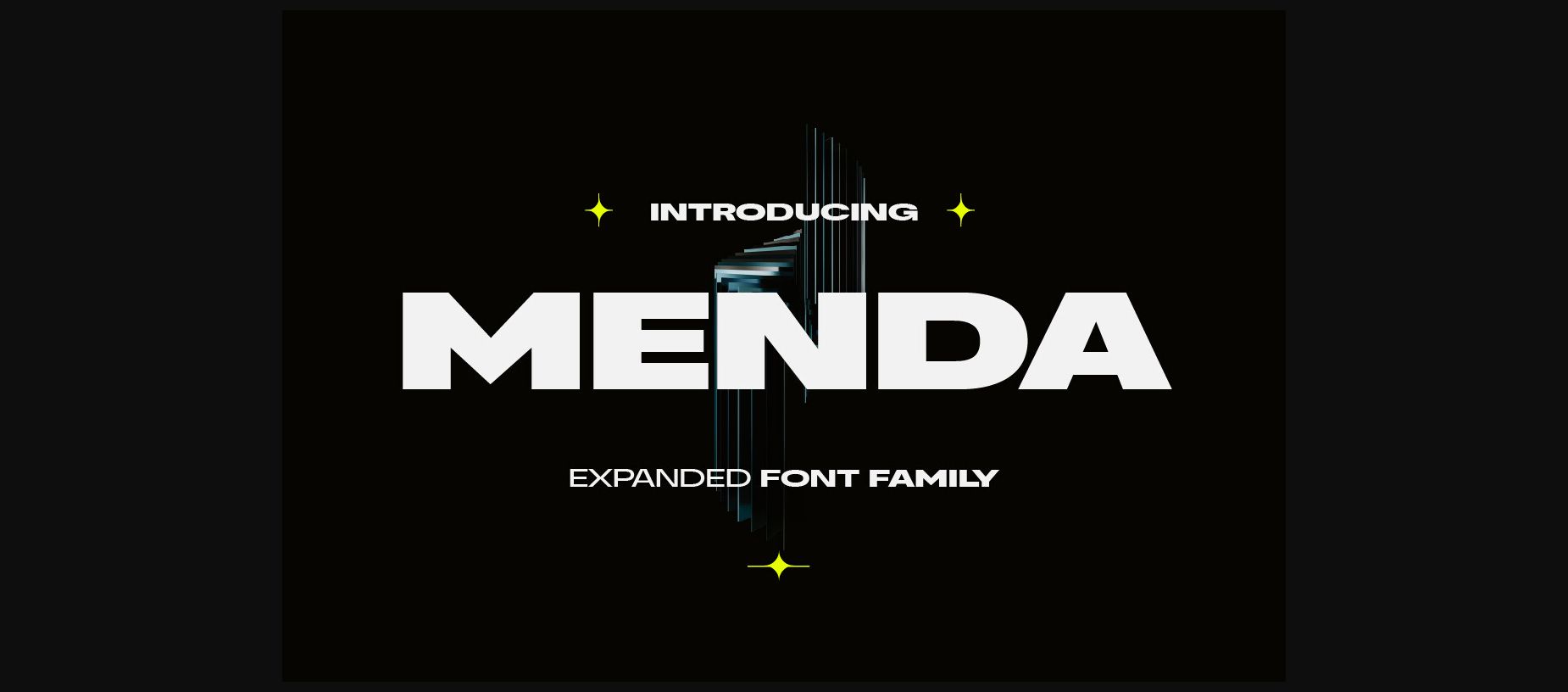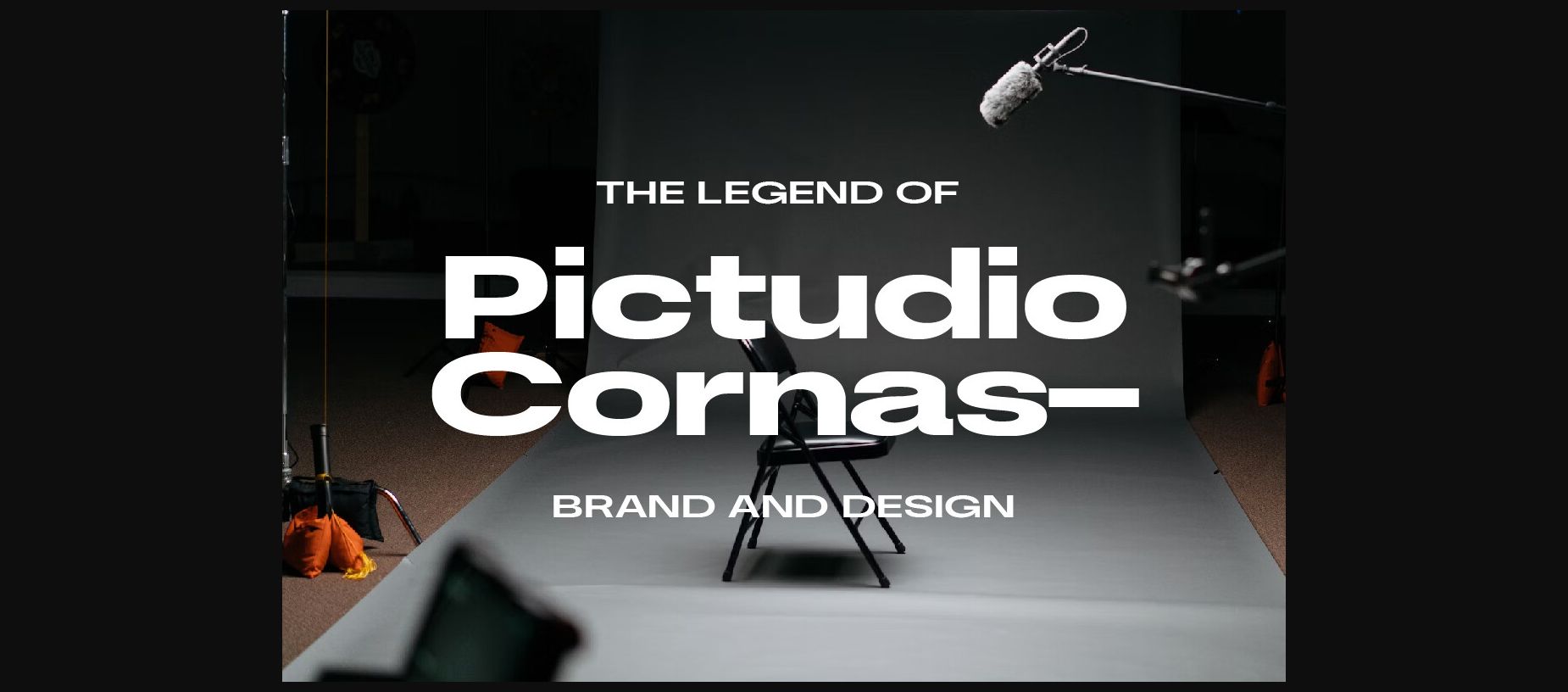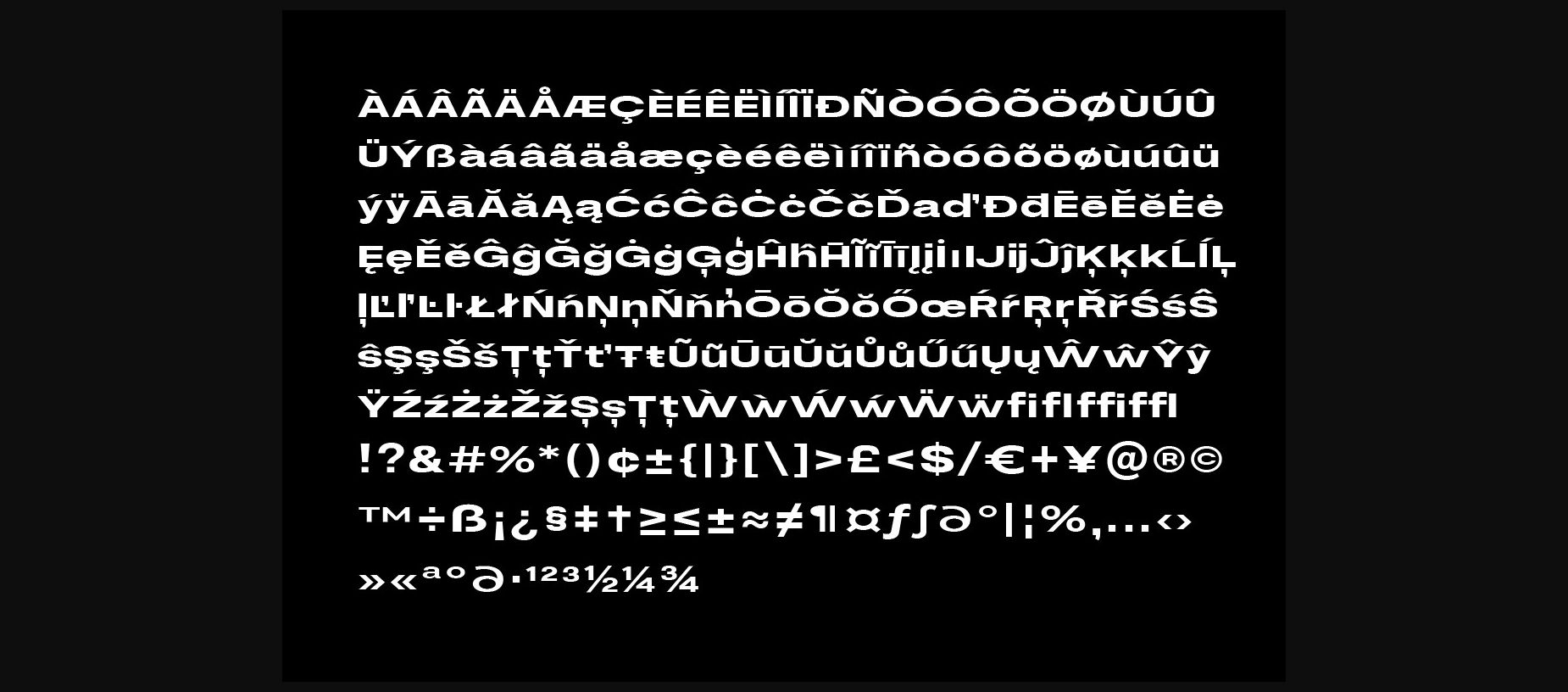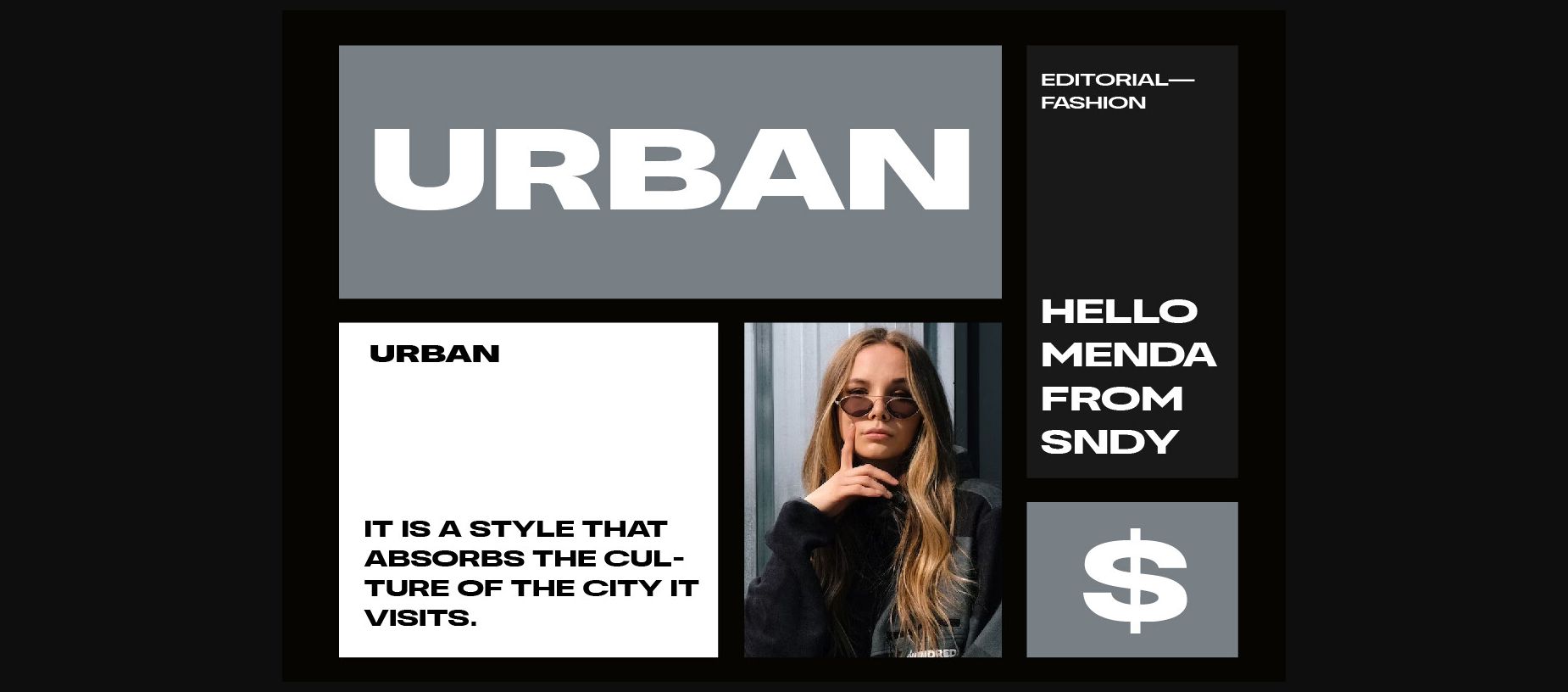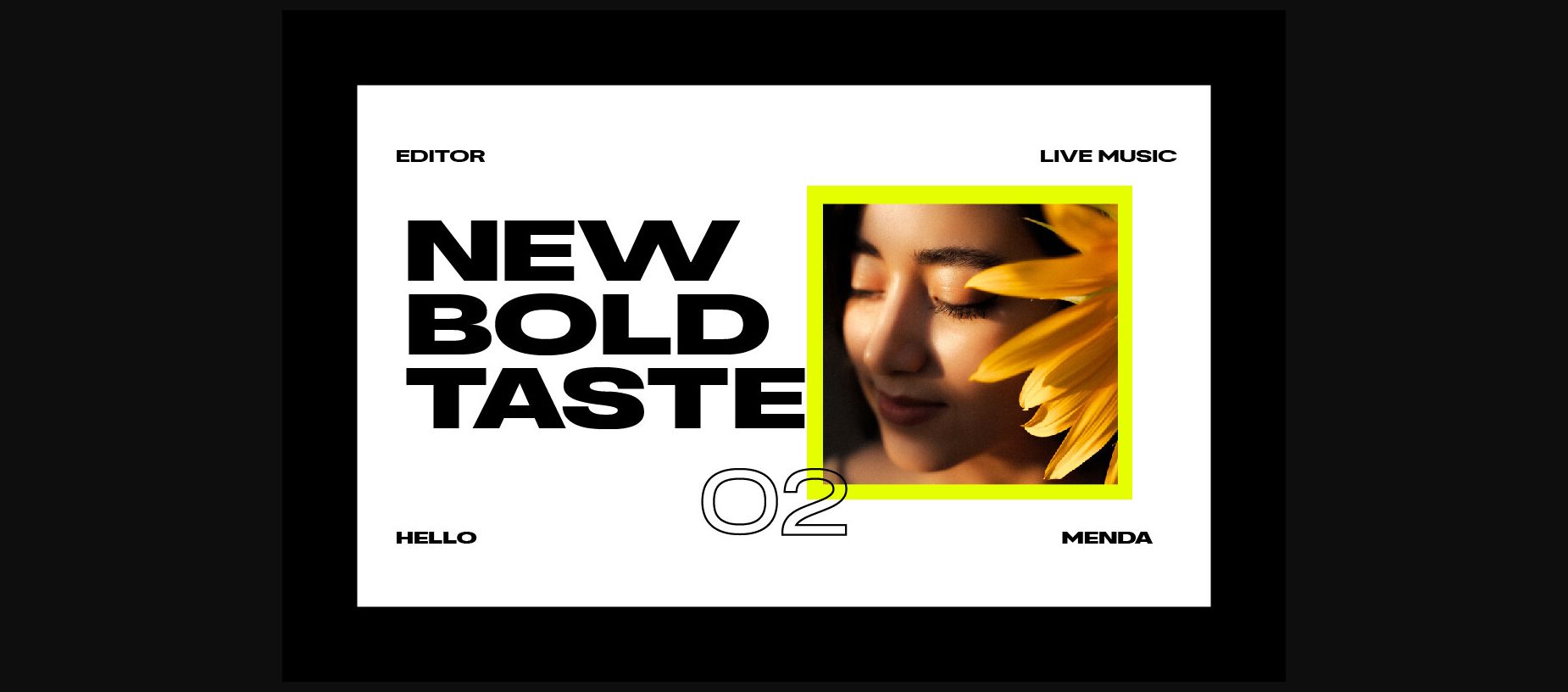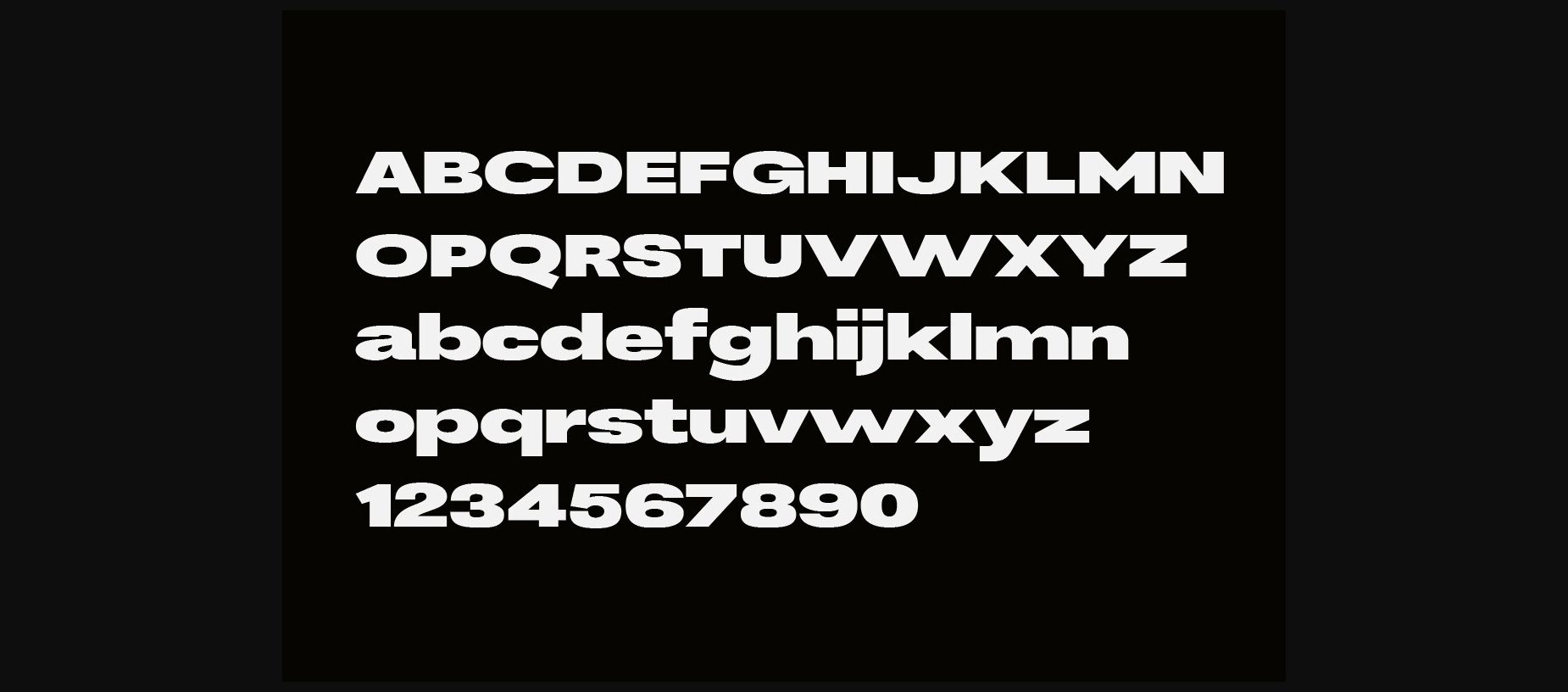
About Menda Font
Menda Expanded Font Family is a versatile and modern typeface that combines geometric shapes and thick weights to create a bold and impactful visual presence. The font features clean lines and elegant curves that maintain readability at large sizes, making it perfect for headlines, posters, and branding materials. With its wide range of weights and styles, the Menda Expanded Font Family is suitable for both digital and print designs, adding a sense of professionalism and sophistication to any project